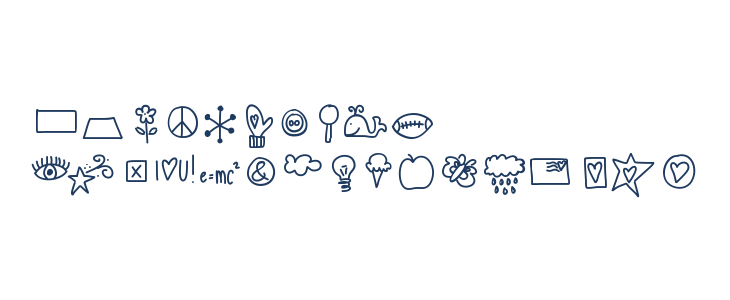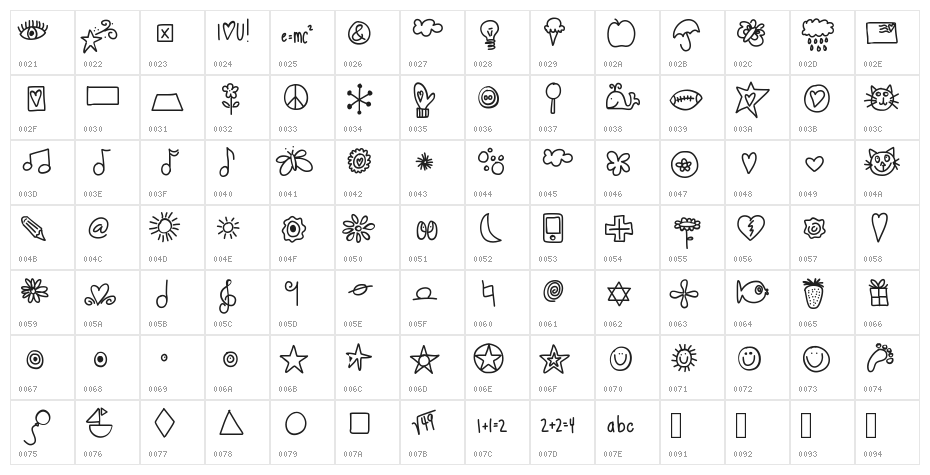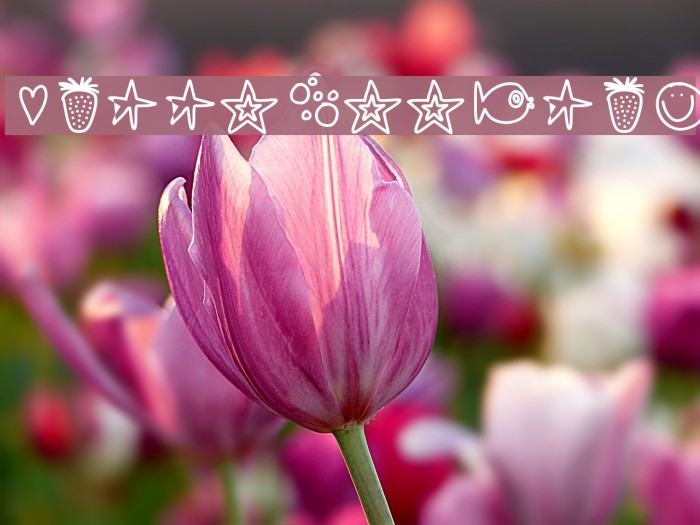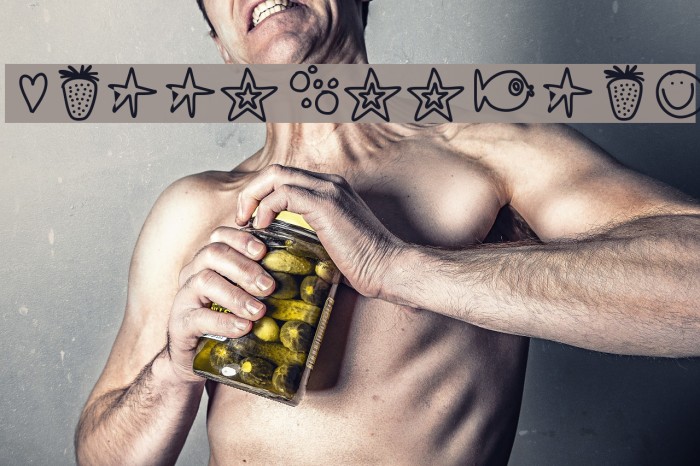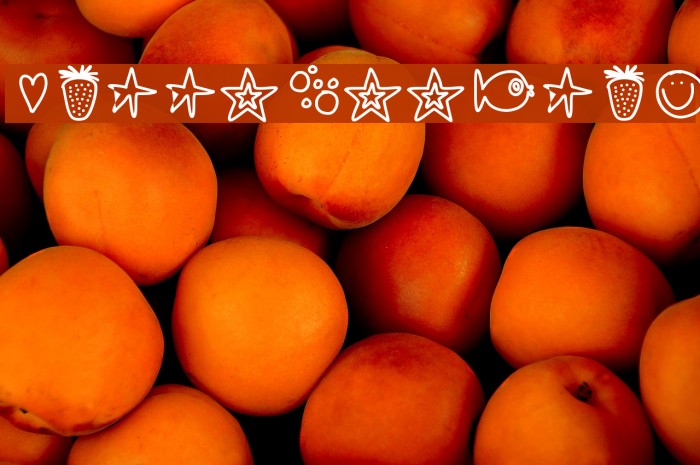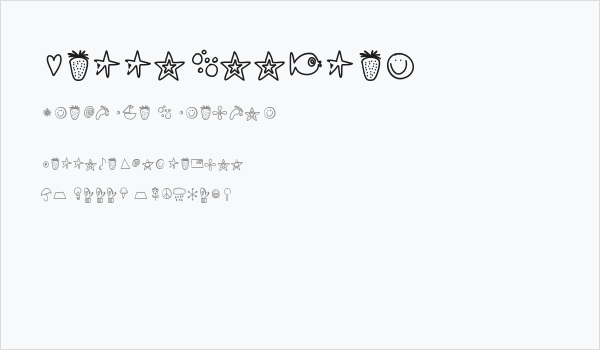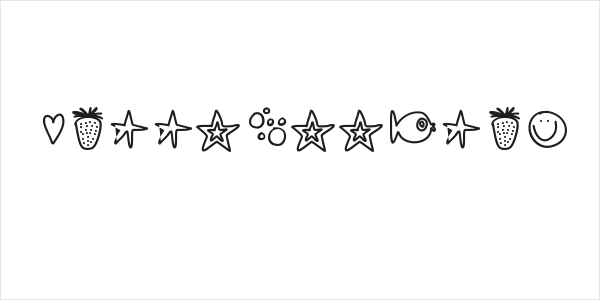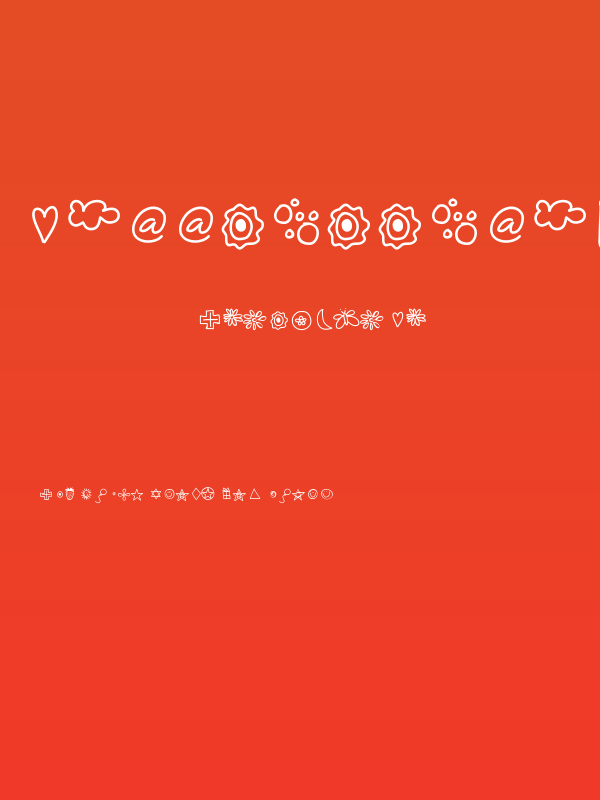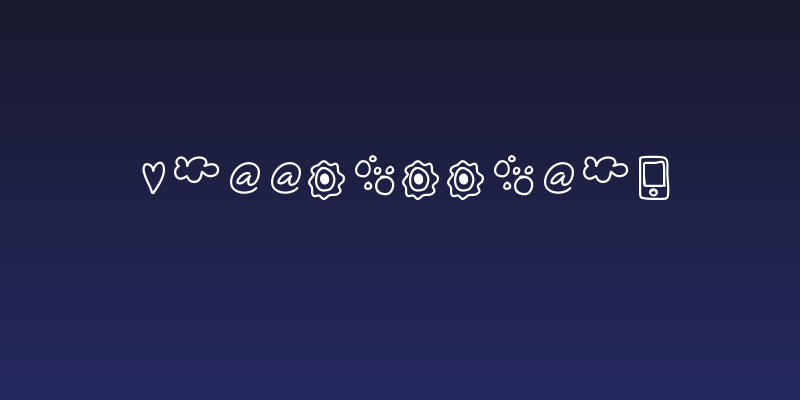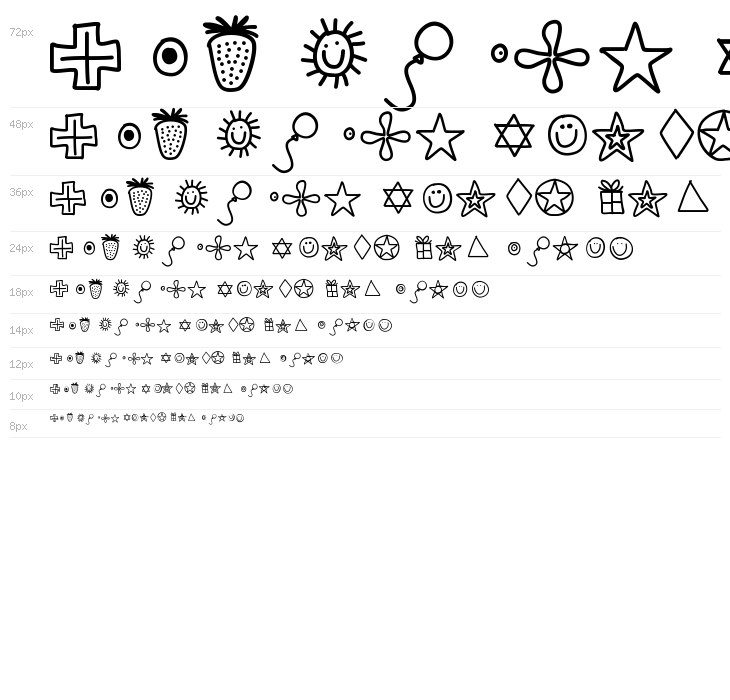
HelloDoodles Font
HelloDoodles Description
This collection features a playful and whimsical set of doodles, each with a hand-drawn aesthetic. The designs include a variety of charming icons such as flowers, hearts, stars, and animals, all rendered with a consistent line weight that gives them a cohesive look. The style is casual and fun, making it ideal for projects that require a touch of creativity and lightheartedness. The icons are versatile and can be used to add a decorative element to various designs, from greeting cards to social media graphics. The overall appearance is clean yet lively, with each doodle maintaining a distinct and recognizable form.
| Overall Style | Whimsical, Playful |
| Use Case | Decorative elements, Illustrations |
| Proposed Projects | Ideal for greeting cards, social media graphics, children's books, and DIY crafts. |